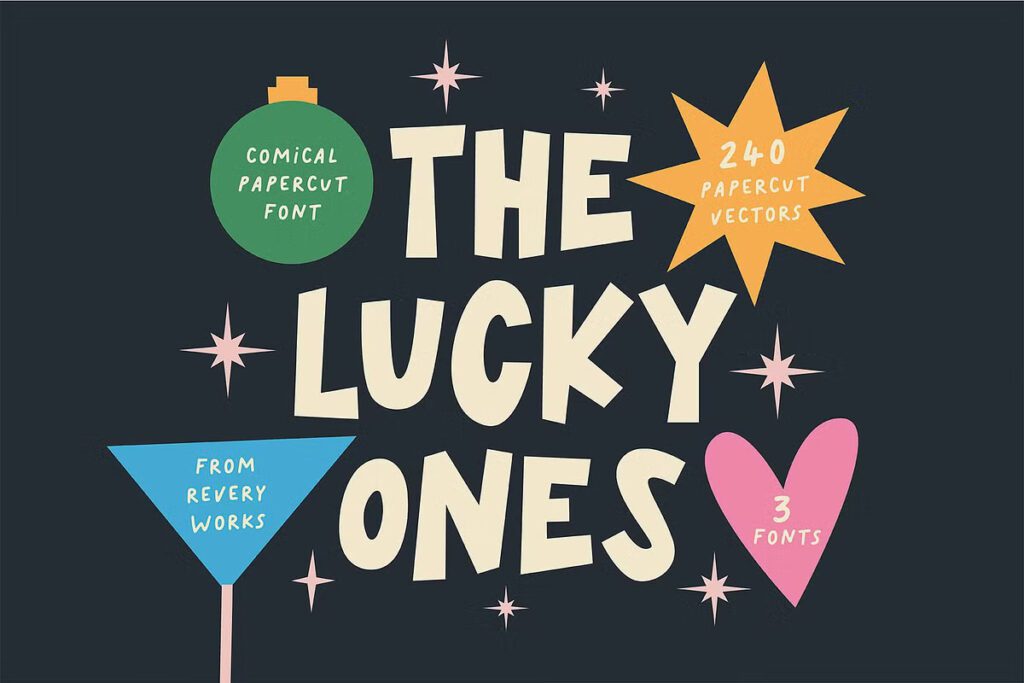
The Lucky Ones: Playful Paper Cut Fonts for Creative Projects
Introducing The Lucky Ones, a fun and whimsical paper cut-inspired font collection by ReveryWorks! Whether you’re working on playful branding, quirky invitations, or holiday-themed designs, this font collection brings a unique, handcrafted feel to your projects. With three distinct styles—Cut, Uncut, and Ransom Notes—The Lucky Ones is a versatile and creative choice for designers looking to add a touch of lightheartedness and charm to their work.
What Makes The Lucky Ones Stand Out?
Playful & Whimsical Design: Inspired by the quirky charm of paper cutouts, The Lucky Ones fonts are perfect for projects that need a fun and informal vibe. Each style—Cut, Uncut, and Notes—brings its own playful personality, making it easy to match the right tone for your designs.
Perfect for Various Design Needs: Whether you’re creating invitations, posters, branding materials, or even holiday cards, The Lucky Ones fonts fit perfectly into any project that calls for a creative and handmade touch.
Bonus Vector Illustrations: Along with the fonts, you’ll receive a variety of paper cut vectors that include foliage, food, and holiday-themed illustrations. These extras are perfect for pairing with the fonts to create cohesive and visually engaging designs.
What’s Included in The Lucky Ones Paper Cut Fonts?
Lucky Ones Cut (OTF): This version features clean, cut-out style letters that resemble classic paper-cut designs, perfect for adding a whimsical touch to any project.
Lucky Ones Uncut (OTF): With a slightly rougher, more handcrafted appearance, this version brings a playful, informal edge to your work.
Lucky Ones Notes (OTF): A ransom-note inspired version that adds a quirky and mysterious vibe, ideal for experimental and bold designs.
Ideal Use Cases for The Lucky Ones
Branding: Whether you’re working on branding for a fun, family-friendly business or a quirky product, The Lucky Ones adds a personalized touch that stands out.
Invitations & Holiday Cards: These fonts are perfect for creating playful and festive holiday cards, birthday invitations, and more.
Illustrations: Paired with the included vector illustrations, The Lucky Ones fonts create an engaging, multi-dimensional design experience.
Why Designers Love The Lucky Ones
With its handcrafted paper-cut feel and unique style variations, The Lucky Ones allows designers to experiment with typography in creative ways. The combination of whimsical fonts and illustrative vectors makes it a must-have for those looking to bring a lighthearted and quirky vibe to their designs.
The Lucky Ones fonts offer the perfect mix of playfulness and creativity for a wide range of projects. Whether you’re creating fun invitations, engaging branding materials, or festive holiday designs, this font collection will make your work pop with personality and charm.